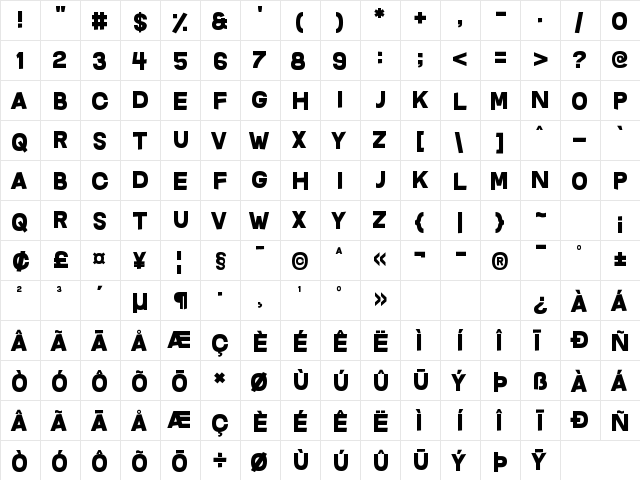
Questrian Regular
Design Context for Questrian Typeface
Questrian is a composed and adaptable typeface that performs quietly and consistently across a wide range of design contexts.